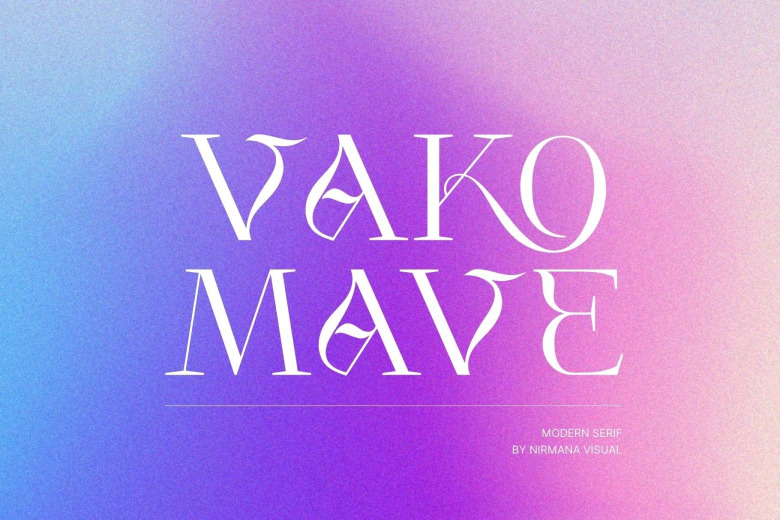
Vako Mave Font
Vako Mave is a trendy and chic serif font. Fall for its ravishing style and use it to create gorgeous wedding invitations, beautiful stationary art, eye-catching social media posts, and much more!